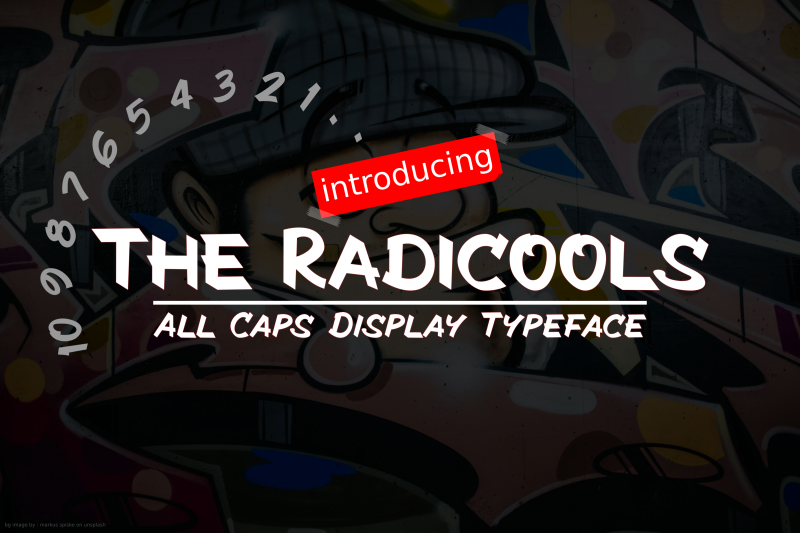
Preview and download The Radicools Font. Created by Onne Hermawan in Fancy Comic styles with Free for personal use license.
The Radicools is an all caps display font, suitable for each of your informal or urban designing needs. Whether you�re using it for crafting, digital designing, presentations or greeting cards making, it�s perfect! The Radicools have two version italic and the regular one. NOTES: By installing or using this font, you are agree to the Product Usage Agreement: 1. This font is only for PERSONAL USE. NO COMMERCIAL ARE USE ALLOWED. 2. You are requires a license for PROMOTIONAL or COMMERCIAL use. below the link for the full version and commercial use : https://www.creativefabrica.com/product/the-radicools/ref/185557/ To donate simply click my donation button above or follow this link : https://paypal.me/hermaone1 any donation are very appreciated. Thank you ==== INDONESIA: Dengan meng-install font ini, anda dianggap mengerti dan menyetujui semua syarat dan ketentuan penggunaan dibawah ini: 1. Font ini hanya dapat digunakan untuk keperluan "Personal Use", atau untuk keperluan yang sifatnya tidak "komersil", atau tidak menghasilkan profit atau keuntungan dari hasil memanfaatkan/menggunakan font ini. 2. DILARANG KERAS menggunakan atau memanfaatkan font ini untuk keperluan Komersil, baik itu untuk Iklan, Promosi, TV, Film, Video, Motion Graphics, Youtube, atau untuk Kemasan Produk (baik fisik maupun digital) atau media apapun dengan tujuan menghasilkan profit/keuntungan. 3. Menggunakan font ini untuk kepentingan komersil apapun bentuknya TANPA IZIN sama sekali tidak dibenarkan, dan anda bisa dikenakan biaya EXTENDED LICENSE atau 100 kali harga dari Lisensi Standard. More... |